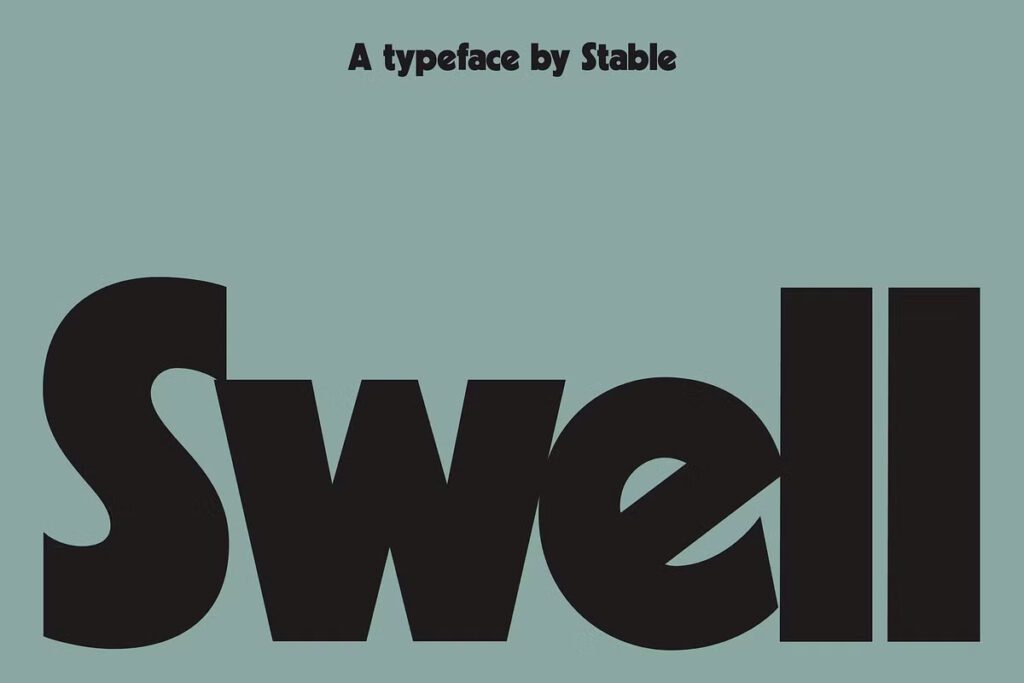
Swell Display Font: A Modern Twist on a Classic Typeface
When it comes to creating bold and striking designs, typography plays a crucial role. The Swell Display Font offers a fresh, contemporary take on the timeless classic, Kabel Black. With its geometric sans-serif design, this font is perfect for projects that need a bold, confident presence. Whether you’re crafting a new logo, setting up an eye-catching headline, or designing a poster, Swell brings the right amount of retro flair mixed with modern versatility.
Why Choose Swell Display Font?
Swell is not just another geometric font. It comes with a range of features that allow for high customization, including over 50 alternative glyphs inspired by other design classics like Avant Garde, Marvin, and Blippo. This makes it a great option for designers who want flexibility and creativity in their work. Swell offers both uppercase and lowercase characters, along with numbers and punctuation, giving you everything you need to create eye-catching designs.
Key Features of Swell Display Font:
Geometric Sans-Serif Design: Bold, geometric shapes make for striking headlines and text.
Inspired by Classics: Alternative glyphs inspired by fonts like Avant Garde, Marvin, and Blippo.
Complete Character Set: Includes uppercase, lowercase, numbers, punctuation, and over 50 alternative glyphs.
Great for Custom Designs: Use it for logos, posters, branding, or any project that needs a bold statement.
Best Uses for Swell Display Font:
Logo Design: Create impactful logos with a bold, modern look.
Headlines: Perfect for headlines that need to grab attention in print or digital media.
Posters and Banners: Ideal for large-scale designs that call for striking fonts.
Branding Projects: Give your brand a modern yet retro feel with Swell’s unique style.